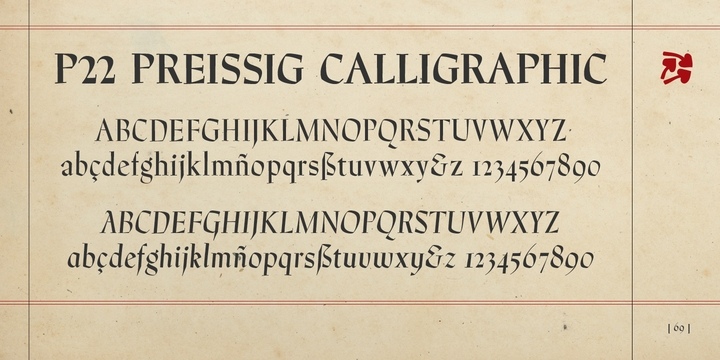
P22 Preissig Calligraphic Font
P22 Preissig Calligraphic Font is perfect for fine art publications, museum catalogs, artistic posters, gallery exhibitions, creative book covers, artistic branding, cultural event materials, avant-garde designs, artistic portfolios, and sophisticated editorial projects.
What makes P22 Preissig Calligraphic Font so exciting is its unique artistic heritage inspired by the innovative work of Vojtěch Preissig, combining traditional calligraphic elegance with modernist design principles. This extraordinary typeface captures the essence of early 20th-century artistic innovation while remaining thoroughly contemporary.
The P22 Preissig Calligraphic Font family includes regular and bold weights, featuring artistic flourishes, decorative elements, stylistic alternates, and calligraphic ligatures that reflect the authentic spirit of Preissig's revolutionary typography work.
The distinctive letterforms of P22 Preissig Calligraphic Font showcase the innovative spirit that made Preissig a pivotal figure in early modernist typography. Each character displays the artist's revolutionary approach to letter design, combining traditional calligraphic craftsmanship with bold experimental forms. The font's unique character and artistic integrity make it ideal for projects requiring cultural depth and creative distinction.
Art directors and cultural institutions consistently choose P22 Preissig Calligraphic Font for projects demanding authentic artistic expression. The comprehensive character set includes period-appropriate alternates, decorative elements, and specialty glyphs that enable designers to create compositions that honor Preissig's artistic legacy while meeting contemporary design requirements.
The cultural significance of P22 Preissig Calligraphic Font extends beyond mere typography, representing a bridge between historical artistic movements and modern design practices. Whether developing museum publications, creating artistic brand identities, or designing cultural event materials, this remarkable typeface adds layers of meaning and artistic credibility to every project.